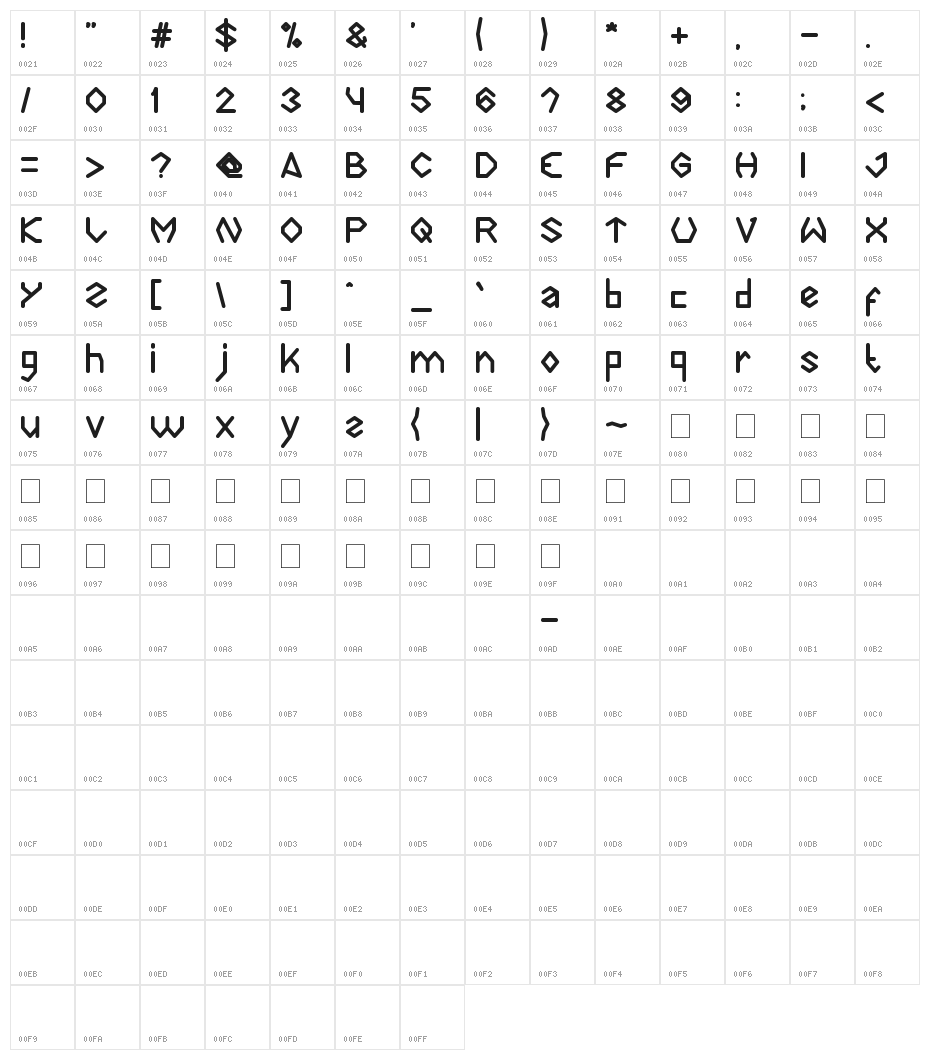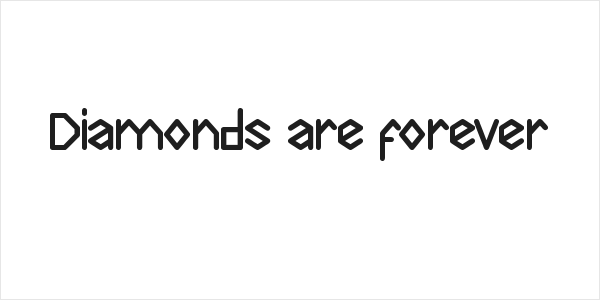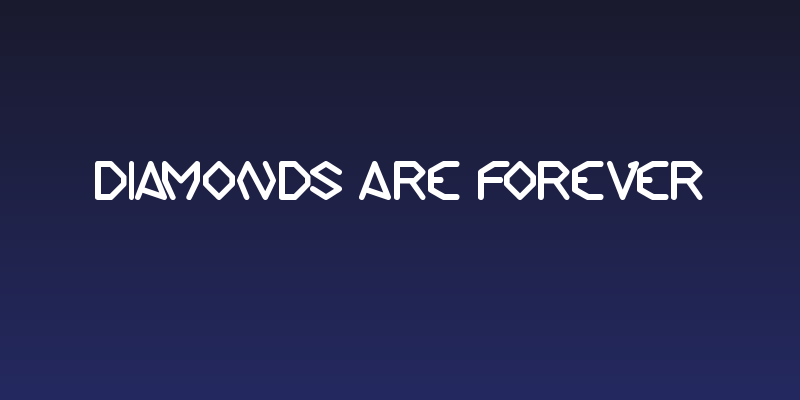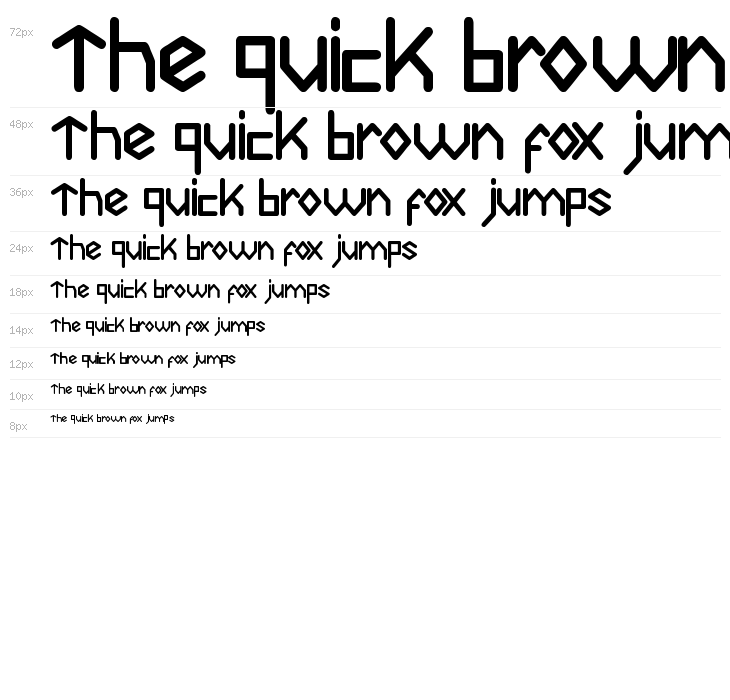
Diamonds are forever Font
Diamonds are forever Description
This font features a geometric and angular design, characterized by its bold and striking appearance. The letters are constructed with thick lines and sharp angles, giving it a futuristic and edgy look. The uppercase and lowercase letters maintain a consistent style, with a uniform thickness that adds to its boldness. The numbers and special characters follow the same design principles, ensuring a cohesive appearance across all glyphs. This font's unique style makes it stand out, with each character appearing as if it is crafted from a series of connected straight lines, resembling a digital or mechanical aesthetic.
| Proposed Projects | Ideal for technology-themed projects, sci-fi movie posters, video game titles, or branding for tech companies. |